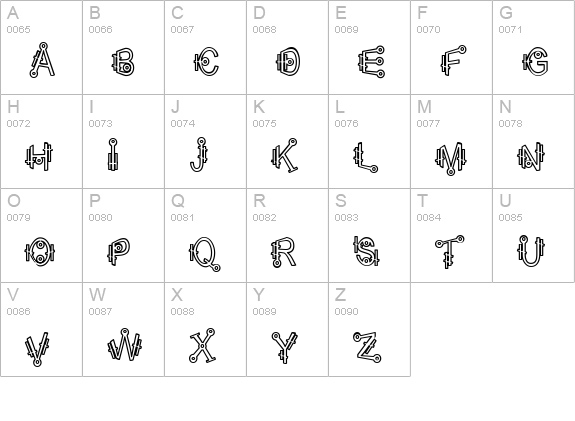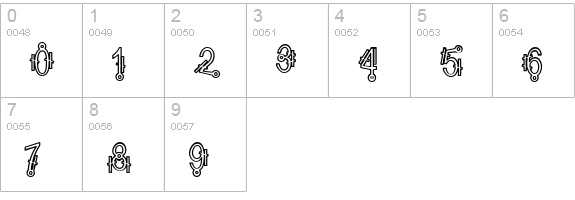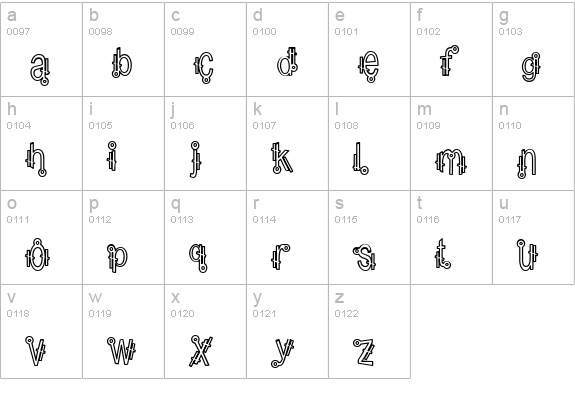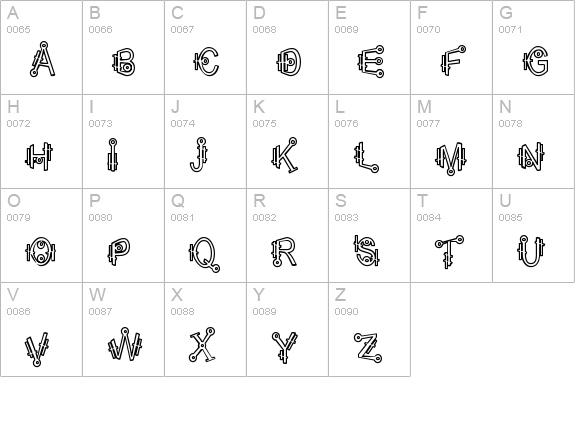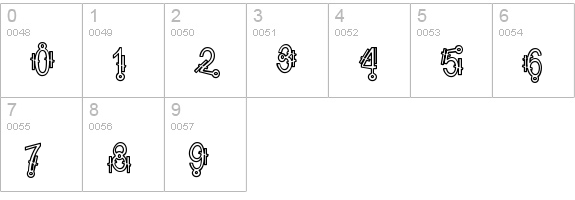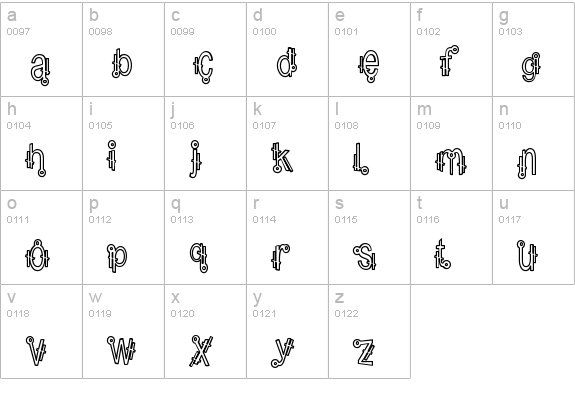
Shamantics Hollow Font Details
Shamantics Hollow is a captivating and enchanting font that will transport you to a world of mystery and magic. Its intricate and delicate design is reminiscent of ancient calligraphy, with each letter carefully crafted to create a sense of elegance and grace. This unique font is perfect for adding a touch of whimsy to your designs. Whether you're creating a logo, designing invitations, or simply adding flair to your social media posts, Shamantics Hollow will effortlessly elevate your work to new heights. One of the best things about Shamantics Hollow is that it is completely free. Yes, you read that right! This stunning font is freely available to download at FontsMarket.com, allowing you to experiment and explore its endless possibilities without any cost. With Shamantics Hollow, you can unleash your creativity and let your imagination run wild. Its flowing lines and intricate details will captivate your audience, leaving a lasting impression wherever it is used. So why wait? Download Shamantics Hollow today and let its beauty and grace inspire your next design project. Whether you're a seasoned designer or just starting out, this font will add a touch of magic to your work and make it truly unforgettable.